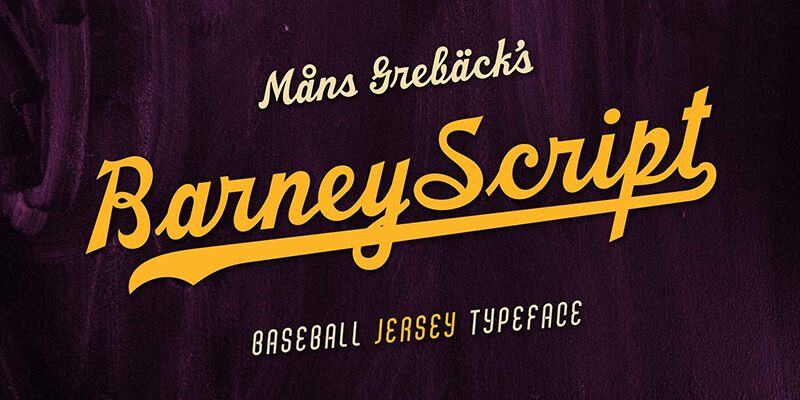
Barney Script font is a retro script font designed by Mans Greback.
Use underscore _ to make a swash.
Example: Letter_
Use multiple underscores to make longer swashes.
Example: Football____